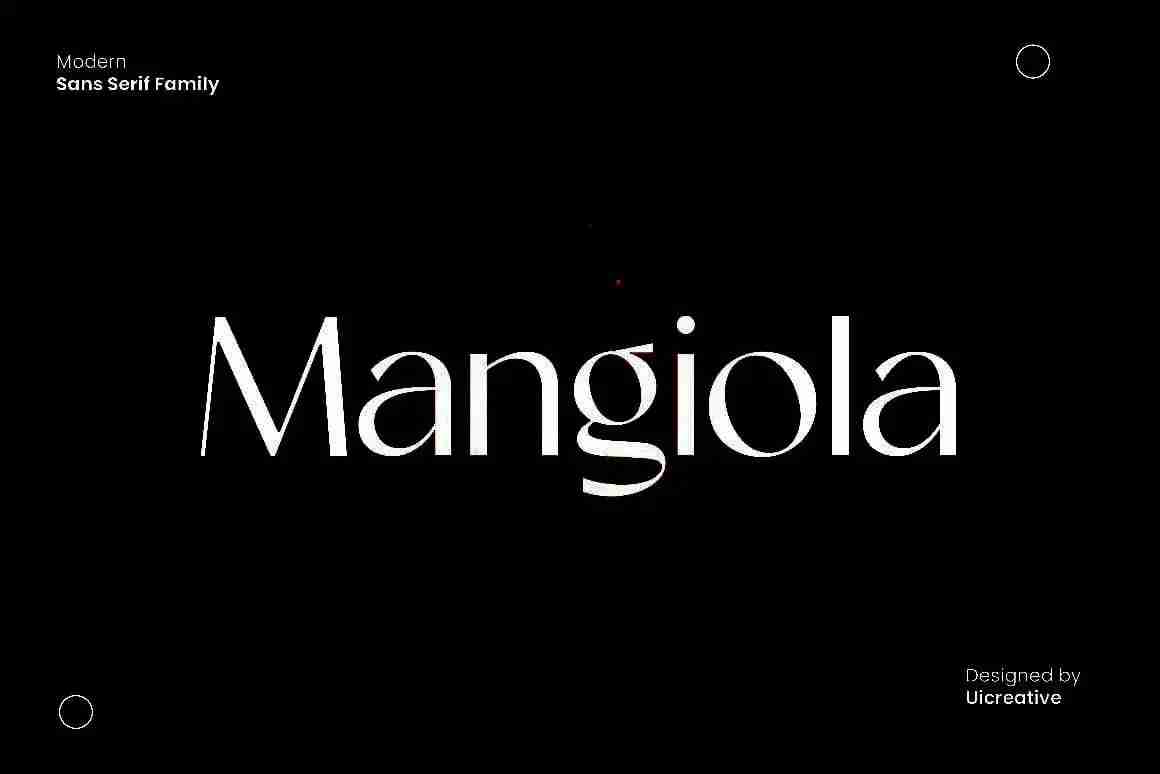
Mangiola Font
Now we will introduce the Mangiola Font. Modern variable sans-serif font has a gentle blend of passion and rationality. This font is great for a wide range of projects, including signature, stationery, and logo typography, wedding quote design magazine or book covers website headers clothing brand packages design and more. In addition, fashion-related branding or editorial design displays both masculine and feminine qualities.
Mangiola Sans Serif Font